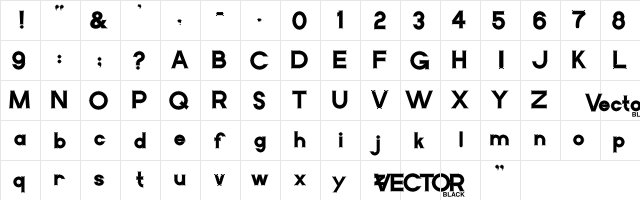
VectorBlack Regular
Design Context for VectorBlack Typeface
VectorBlack is a composed and adaptable typeface that performs quietly and consistently across a wide range of design contexts.